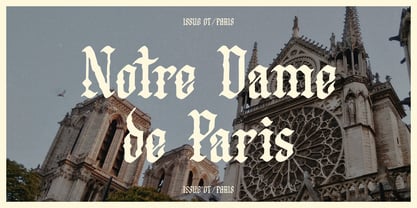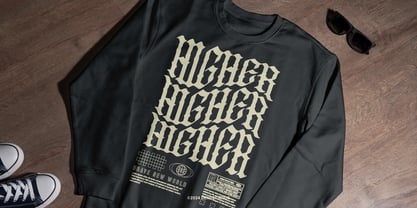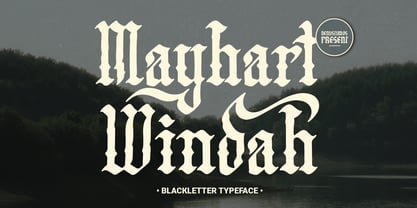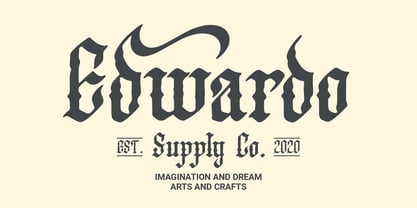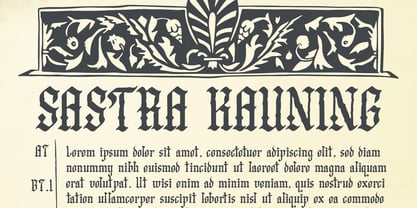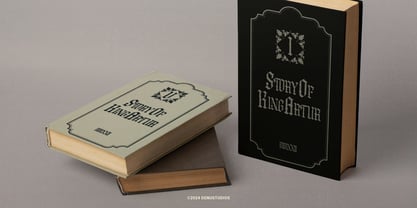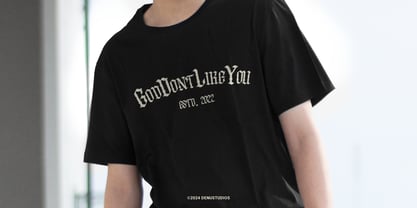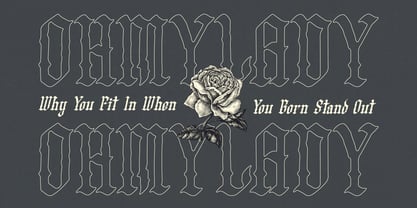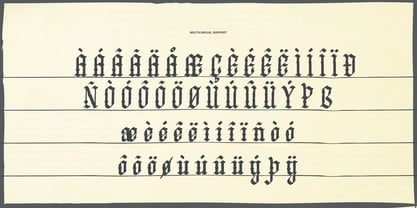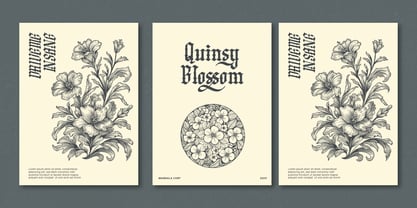
Mayhart Windah
The Mayhart Windah Font Family was designed by Dede Nugraha and published by Denustudio. Mayhart Windah contains 2 styles and family package options.
Mayhart Windah | Blackletter Typeface, from Denustudios, suitable for any projects such as: logos, branding projects, homeware designs, product packaging, mugs, quotes, posters, shopping bags, t-shirts, book covers, name card, invitation cards, greeting cards, label, photography, watermark, special events, and all your other lovely projects that need a Blackletter Typeface, taste.
• Regular and Italic
• Alternate and Ligature
• Fonts include multilingual support